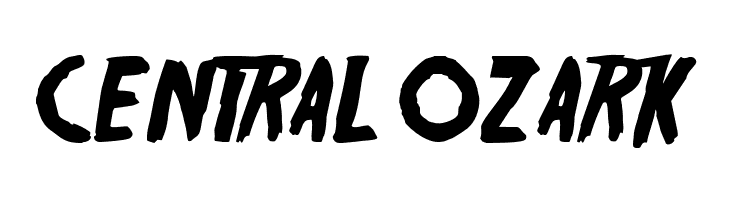
Sheriff of South St Font
- Font: Sheriff of South St
( Fonts by www.norfok.com - Norfok® Incredible Font Design - Thomas W. Otto )
A bold, hand-drawn font with a jagged, horror-inspired style.